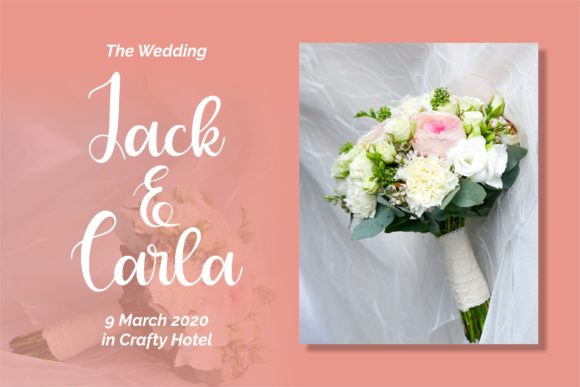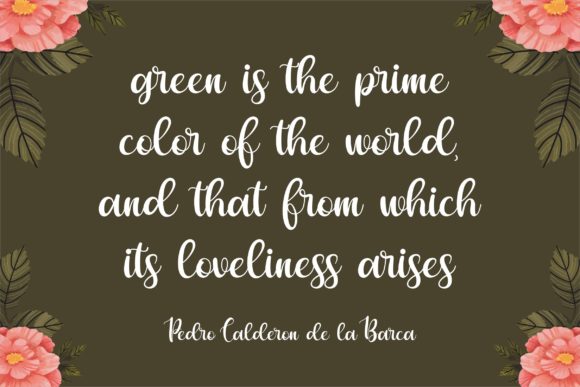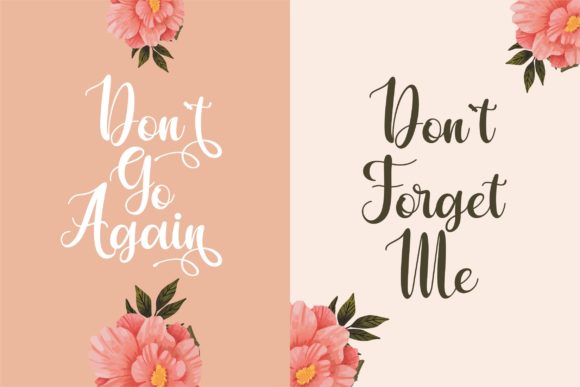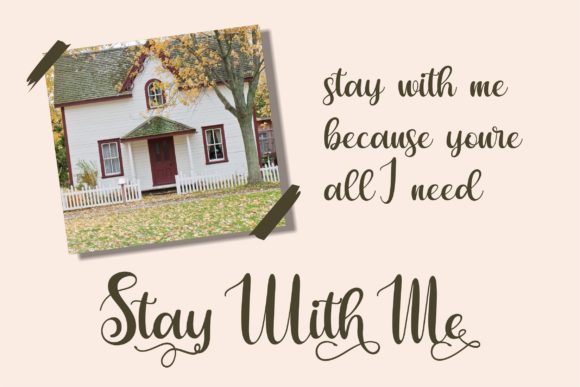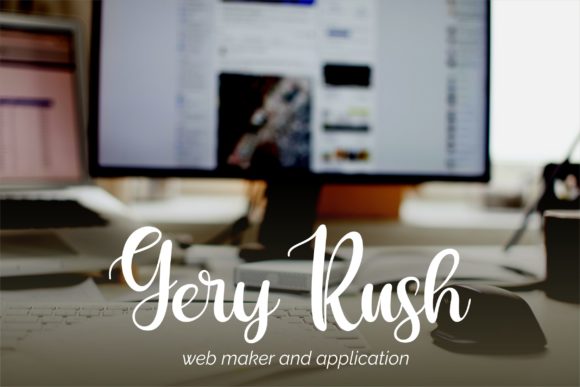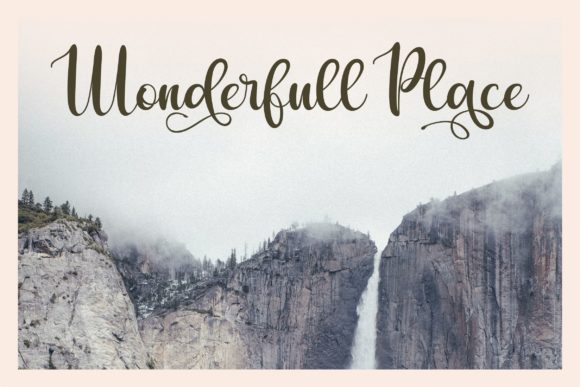
Discover the Charm of Agitha Font: A Lovely Handwritten Script for Your Creative Projects
Are you on the hunt for a font that exudes elegance, sophistication, and a touch of playfulness? Look no further than Agitha Font, a beautiful, round-lettered handwritten script that’s perfect for a wide range of creative projects. In this article, we’ll dive into the features, benefits, and uses of Agitha Font, and explore why it’s a must-have for designers, crafters, and anyone looking to add a personal touch to their work.
What is Agitha Font?
Agitha Font is a stunning, handwritten script that’s been designed to capture the essence of traditional calligraphy with a modern twist. This lovely font features a varying baseline, smooth lines, gorgeous glyphs, and stunning alternates, making it incredibly versatile and perfect for a wide range of applications.
Key Features of Agitha Font
- Varying Baseline: The font’s varying baseline gives it a natural, handwritten feel that’s perfect for creating beautiful, eye-catching text.
- Smooth Lines: Agitha Font features smooth, flowing lines that add to its elegance and sophistication.
- Gorgeous Glyphs: The font includes a range of gorgeous glyphs and stunning alternates, allowing you to add unique touches to your designs and make them stand out.
Uses for Agitha Font
Agitha Font is incredibly versatile, making it perfect for a wide range of creative projects, including:
- Wedding Invitations: Create beautiful, elegant wedding invitations that set the tone for a special day.
- Stationary Art: Use Agitha Font to create stunning stationary art, including greeting cards, thank you cards, and more.
- Social Media Posts: Add a touch of elegance to your social media posts and make them stand out from the crowd.
- Branding: Use Agitha Font to create a unique and memorable brand identity that reflects your business’s personality and style.
Benefits of Using Agitha Font
So why choose Agitha Font for your creative projects? Here are just a few benefits of using this lovely font:
- Elegance and Sophistication: Agitha Font adds a touch of elegance and sophistication to any design, making it perfect for projects where you want to make a lasting impression.
- Versatility: The font’s versatility means you can use it for a wide range of projects, from wedding invitations to social media posts.
- Unique and Memorable: Agitha Font is a unique and memorable font that will help your designs stand out from the crowd.
Agitha Font is a beautiful, versatile handwritten script that’s perfect for designers, crafters, and anyone looking to add a personal touch to their creative projects. With its PUA encoding, varying baseline, smooth lines, gorgeous glyphs, and stunning alternates, Agitha Font is a must-have for anyone looking to create elegant, sophisticated designs. Whether you’re creating wedding invitations, stationary art, social media posts, or more, Agitha Font is the perfect choice.